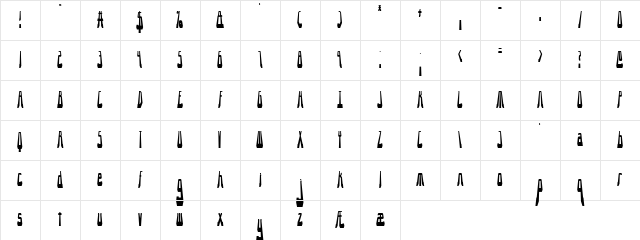
Complete 10.15 Saturday Night (BRK) Regular glyph index. Displaying only characters natively supported by 10.15 Saturday Night (BRK) Regular font.
10.15 Saturday Night (BRK) is a composed and adaptable typeface that performs quietly and consistently across a wide range of design contexts.